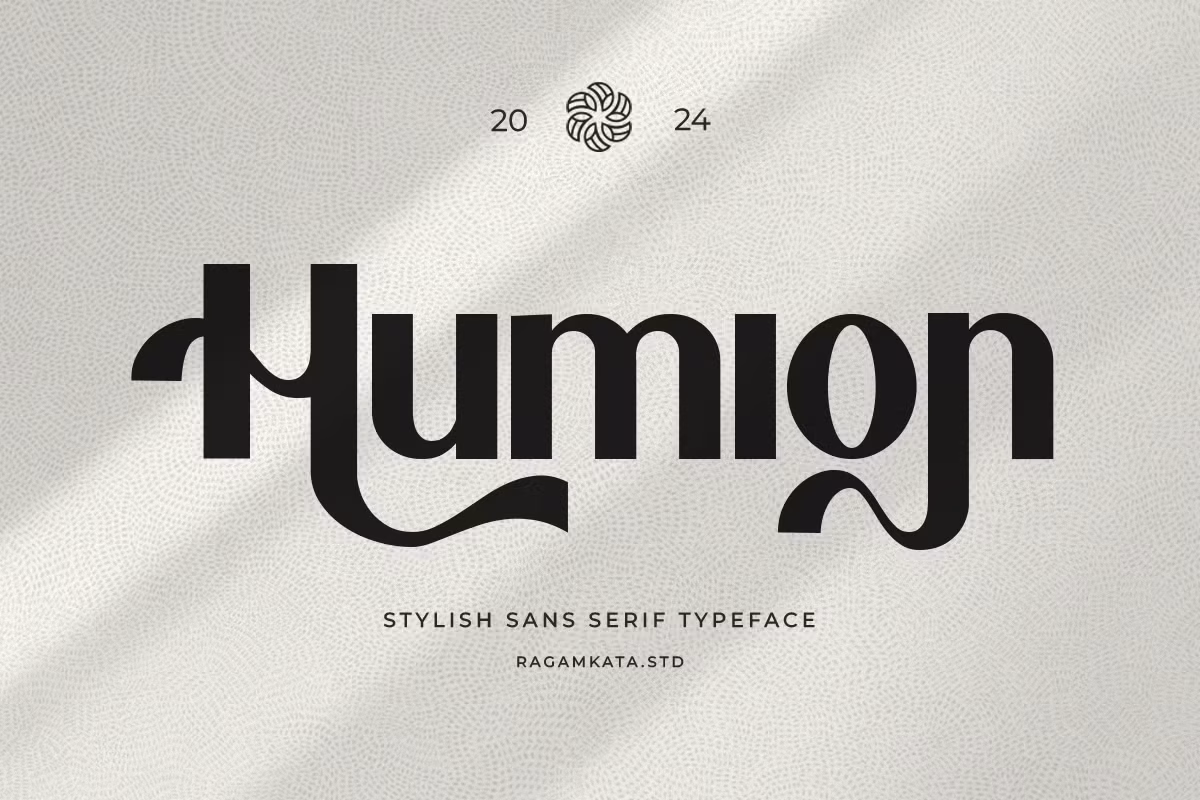
Humion - Stylish Sans Serif Typeface Free Download is a modern and sleek sans-serif typeface that exudes elegance and minimalism. With its clean lines, contemporary letterforms, and refined proportions, this font is perfect for branding, editorial design, websites, and any project that requires a sophisticated and modern touch.
Using the Humion - Stylish Sans Serif Typeface Free Download adds a fresh, professional feel to your typography. Whether you’re designing a logo, creating a sleek website layout, or working on marketing materials, this font ensures that your design looks clean, polished, and modern.